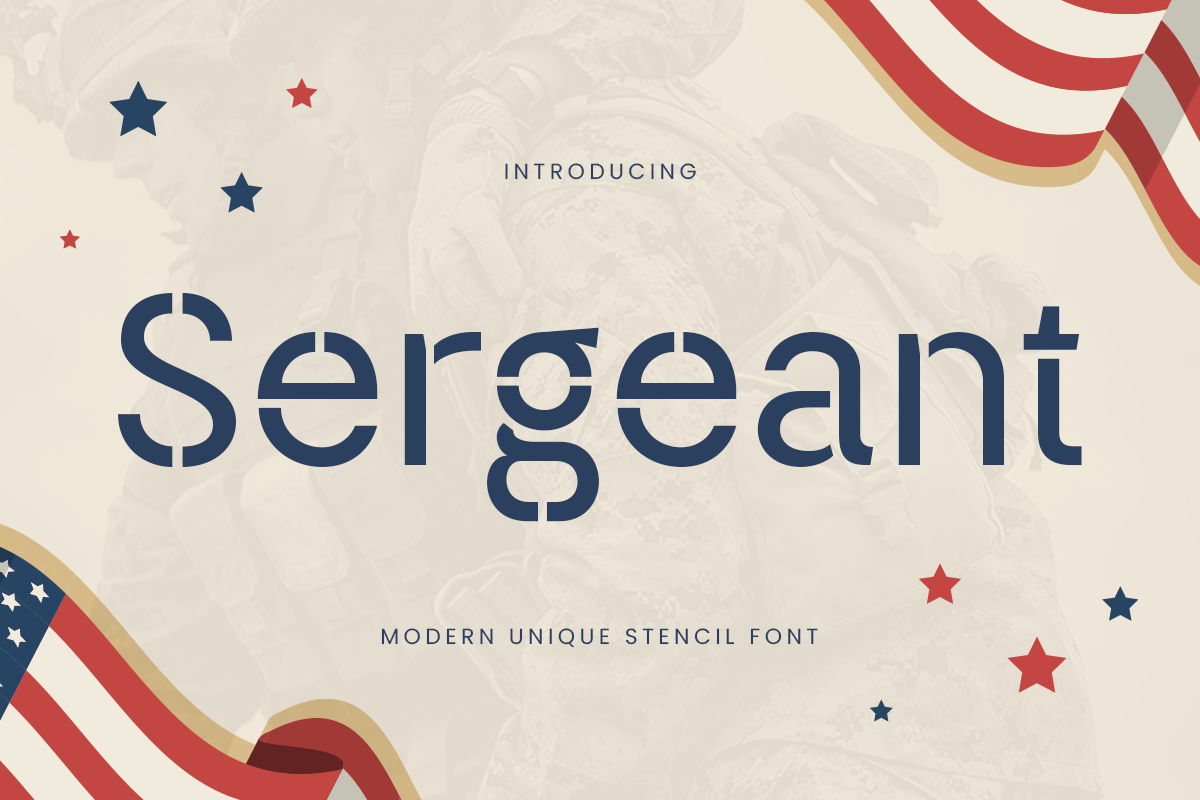
Sergeant
A Stencil style of Sergeant font with strong and exclusive shape, ready for Action branding needs will be ready to add value of your brand. It so nice to leverage designer or product owner that need solutions to make their design look more stunning and modern. And specially for Sergeant Stencil font, We prepared any action characters to help you create unlimited variations for your creative needs.
Any Sharp characters to get creative variations
Preview as a inspirations that you can do with Sergeant font